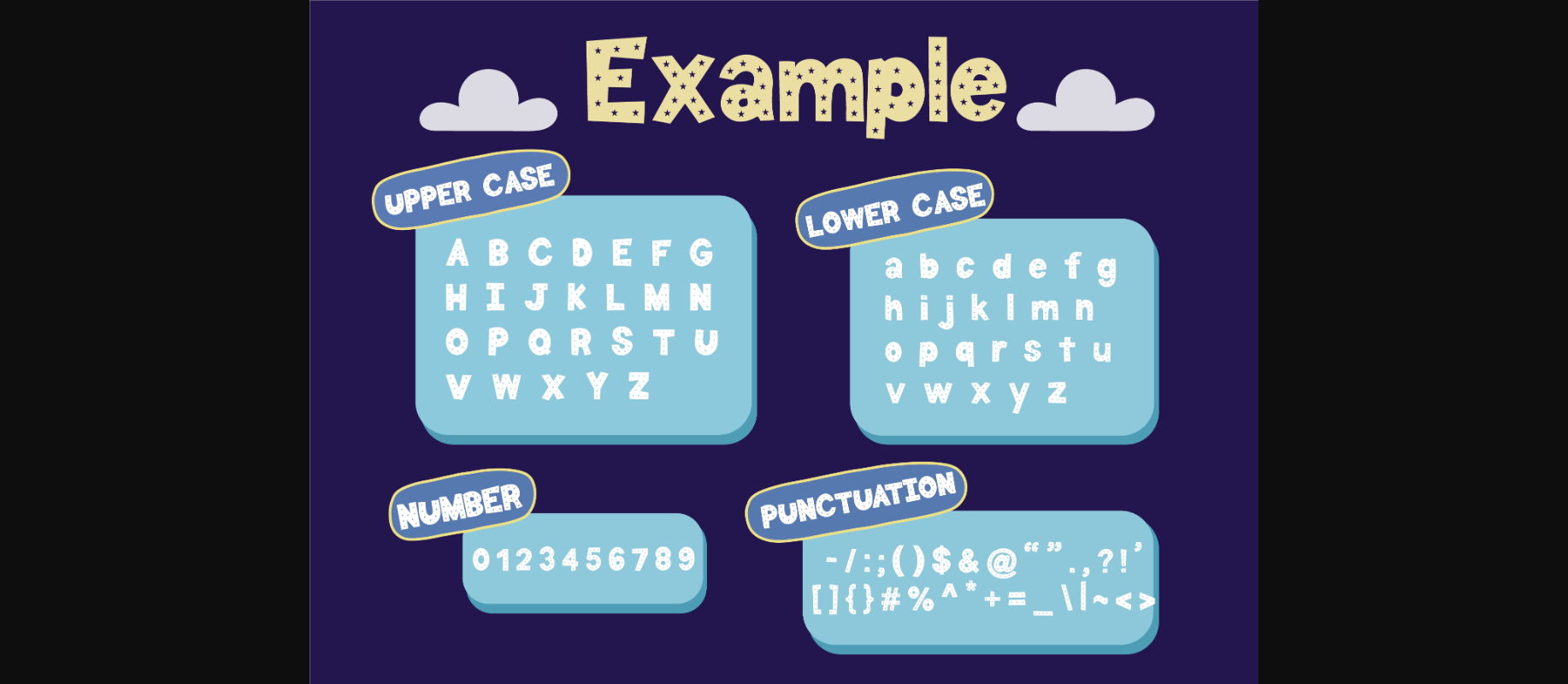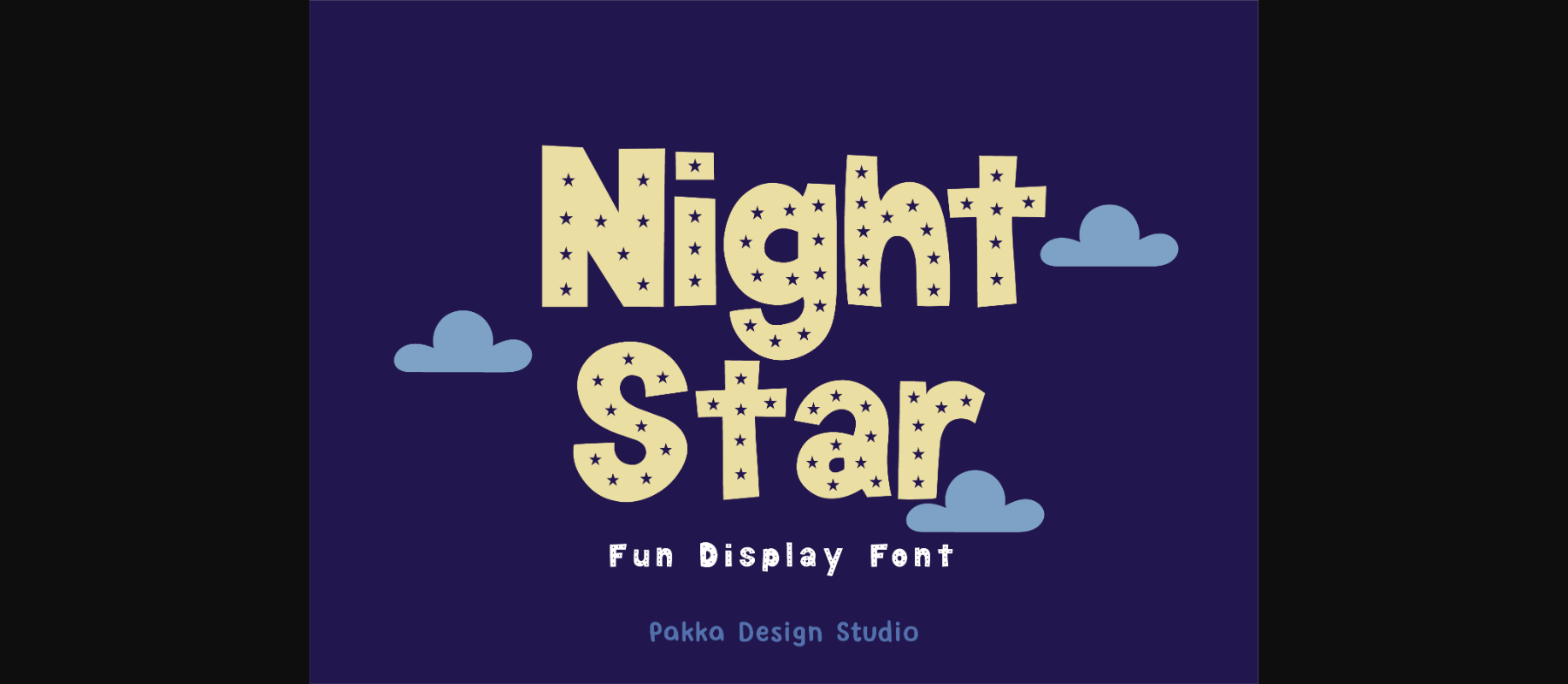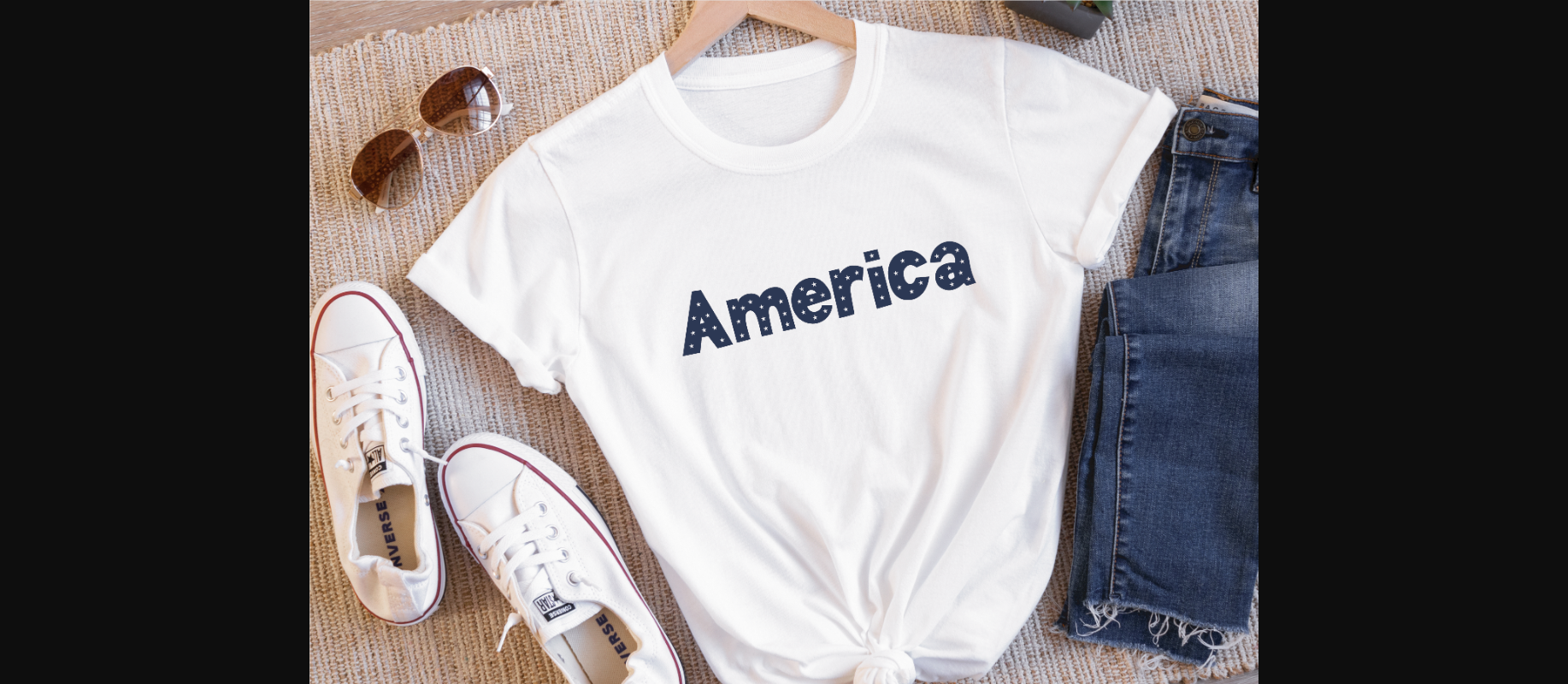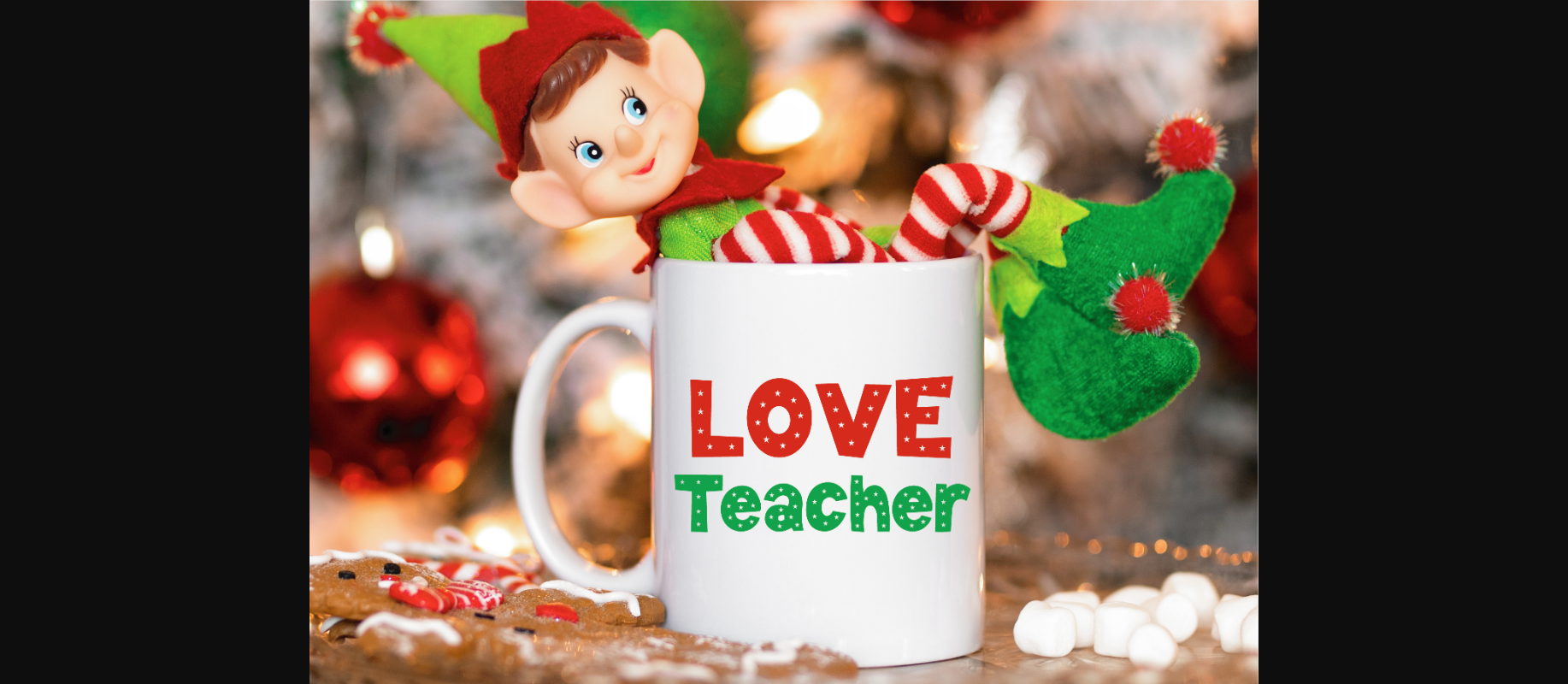
About Night Star Font
“Night Star” is a font that’s totally out of this world! It’s bold and strong, just like a superhero font, but it has a magical secret: each letter has a shiny star hidden inside. Imagine writing your words, and every letter is like a little nighttime adventure. The stars inside the letters twinkle and shine, making your words look like they belong in the night sky. “Night Star” is the perfect font to make your messages shine as bright as the stars in the sky.